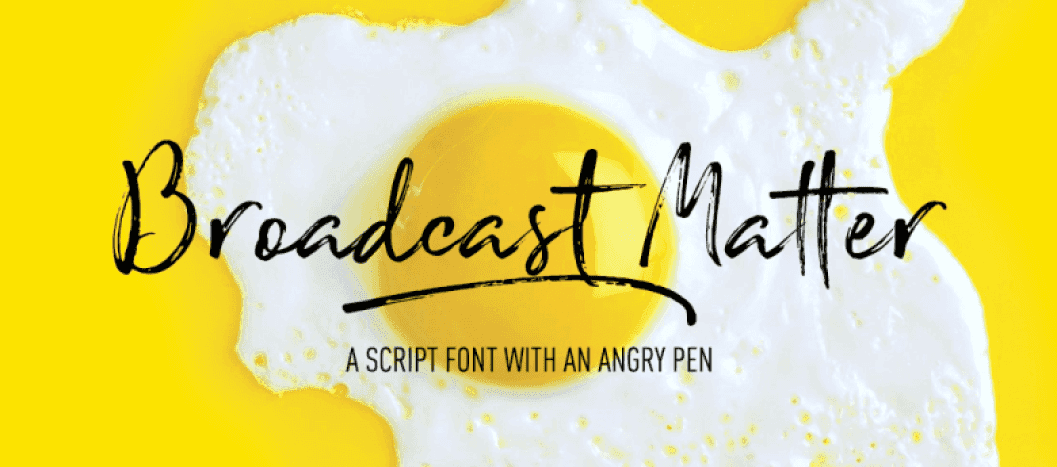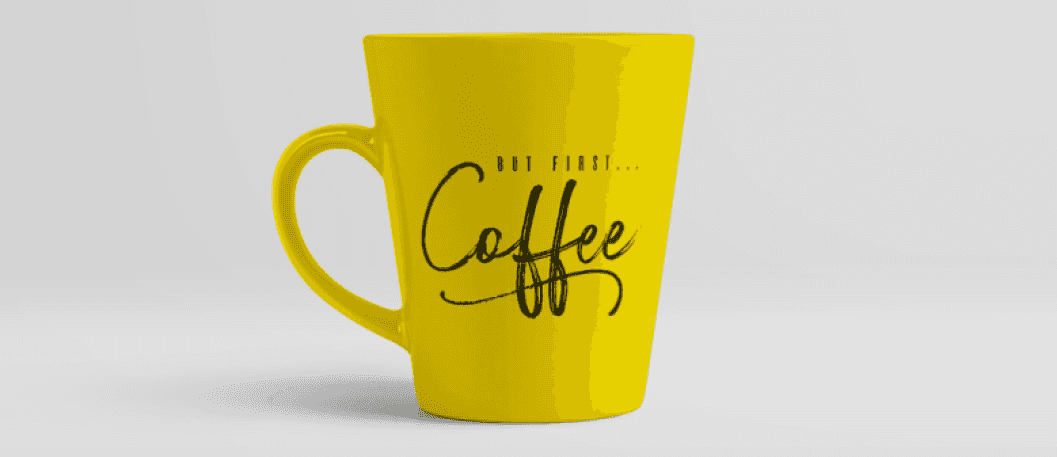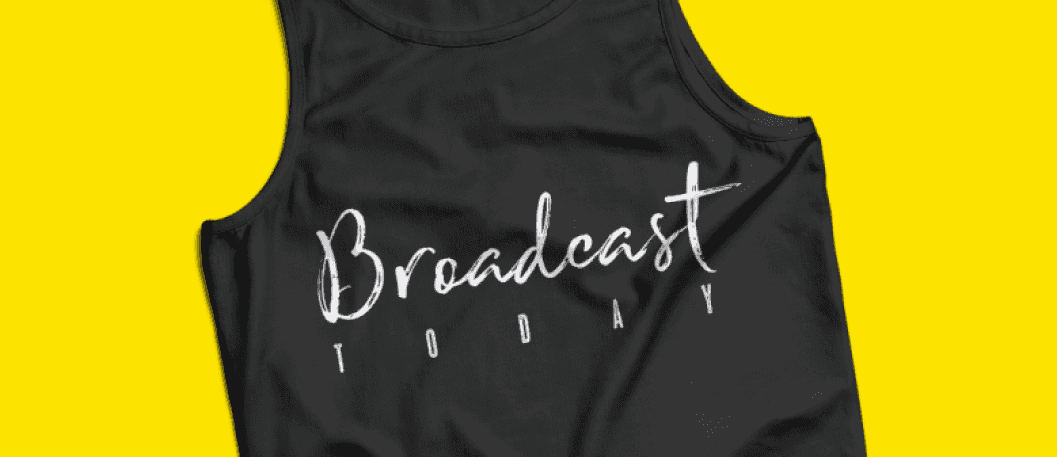
Broadcast Matter font was done using a Zebra brush pen. The commercial version has all the double letters and their types repeated with two indices: 7 and 18 under lines for emphasis.